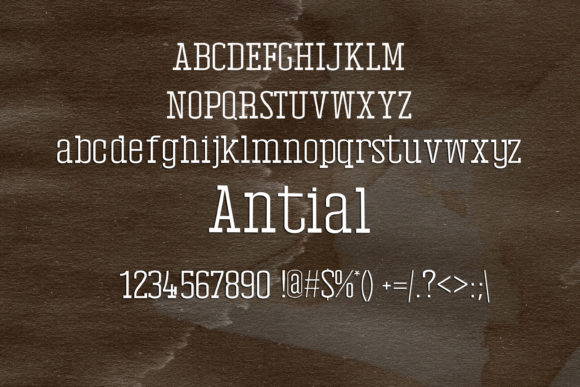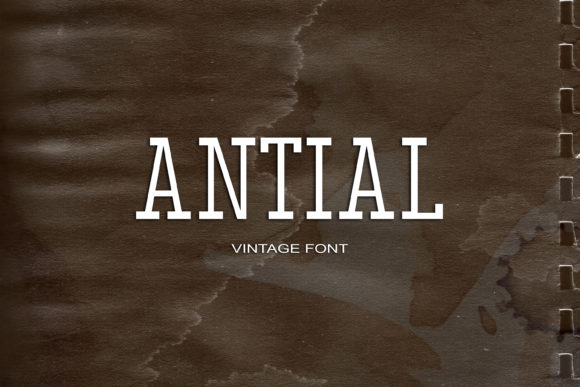
Introducing Antial Font: A Bold and Retro-Inspired Typeface
In the world of typography, fonts play a crucial role in conveying messages, expressing emotions, and creating visual identities. For designers, crafters, and creative enthusiasts, finding the perfect font can be a daunting task. However, if you’re looking for a typeface that embodies the spirit of the 80s with a modern twist, look no further than Antial Font. In this article, we’ll dive into the world of Antial Font, exploring its inspiration, features, and uses.
The Inspiration Behind Antial Font
Antial Font is inspired by the retro aesthetics of the 1980s, an era known for its bold, vibrant, and playful design. The font’s creator drew inspiration from the iconic typography of the decade, characterized by its bold lines, bright colors, and futuristic feel. Antial Font brings this nostalgic style into the modern era, making it an excellent choice for designers and crafters seeking a unique and eye-catching typeface.
Key Features of Antial Font
Antial Font boasts a range of features that make it an excellent addition to any design project. Some of its key characteristics include:
- Bold 80’s Typography Style: Antial Font’s bold and chunky design is reminiscent of the iconic typography of the 1980s.
- Retro Aesthetics: The font’s retro-inspired design makes it perfect for projects that require a nostalgic or vintage feel.
- High Versatility: Antial Font is perfectly suited for a wide variety of projects, from branding and advertising to packaging and digital design.
- Easy to Read: Despite its bold design, Antial Font remains easy to read, making it an excellent choice for body text and headlines.
Uses of Antial Font
Antial Font’s versatility makes it an excellent choice for a wide range of design projects. Here are some ideas to get you started:
- Branding and Logo Design: Antial Font’s bold and eye-catching design makes it perfect for creating memorable logos and brand identities.
- Advertising and Marketing: The font’s retro-inspired design and bold typography make it an excellent choice for advertising and marketing materials.
- Packaging Design: Antial Font’s unique design makes it an excellent choice for packaging design, adding a touch of personality to product labels and packaging.
- Digital Design: The font’s clean and legible design makes it perfect for digital design projects, including websites, social media graphics, and more.
Tips for Using Antial Font
To get the most out of Antial Font, here are some tips to keep in mind:
- Experiment with Colors: Antial Font’s bold design makes it perfect for experimenting with bright and bold colors.
- Mix and Match: Combine Antial Font with other fonts to create a unique and visually appealing typography style.
- Play with Texture: Add texture and depth to your design by combining Antial Font with textured backgrounds or overlays.
Antial Font is a bold and retro-inspired typeface that is perfectly suited for a wide variety of design projects. With its bold 80’s typography style, retro aesthetics, and high versatility, Antial Font is an excellent choice for designers, crafters, and creative enthusiasts. Whether you’re looking to create a memorable brand identity, eye-catching advertising materials, or unique packaging design, Antial Font is sure to deliver. So why not give Antial Font a try and see how it can elevate your design projects?